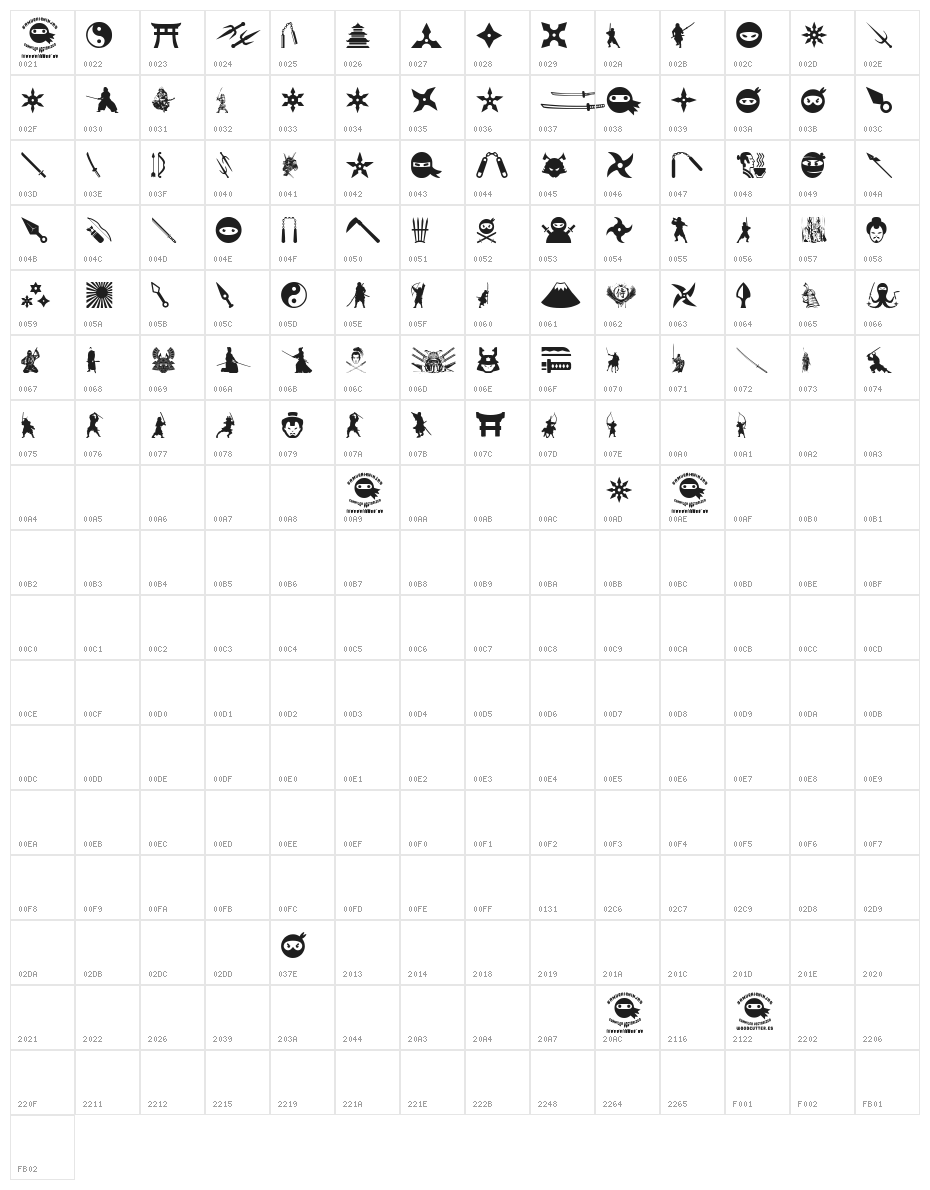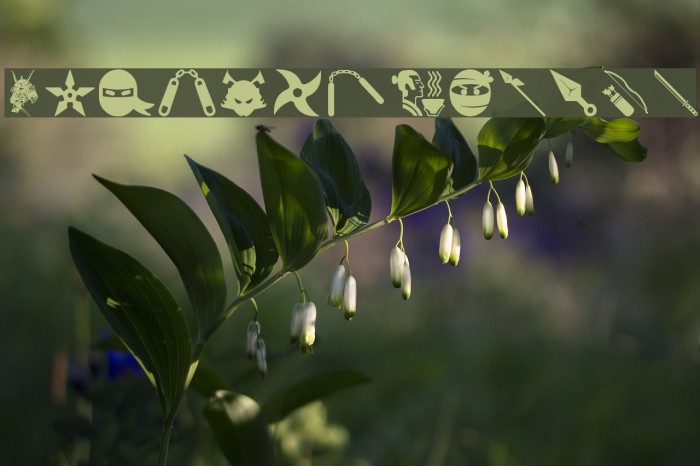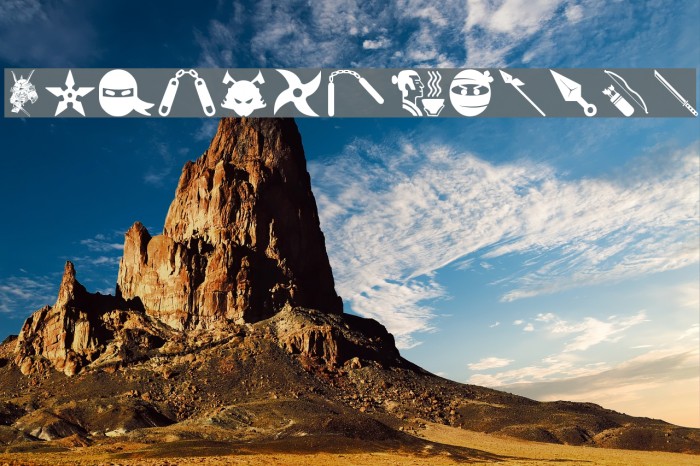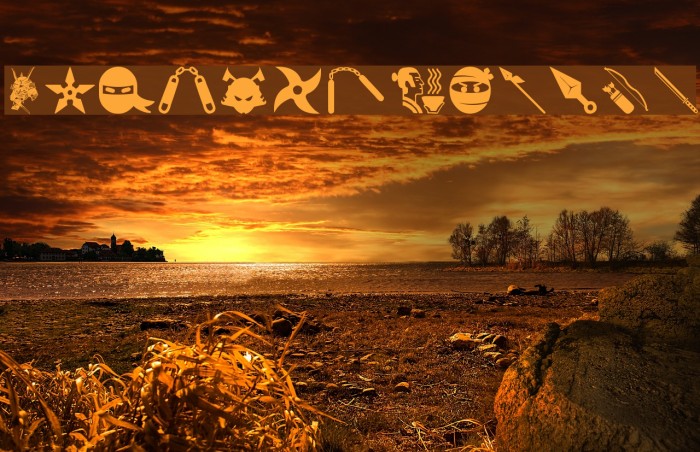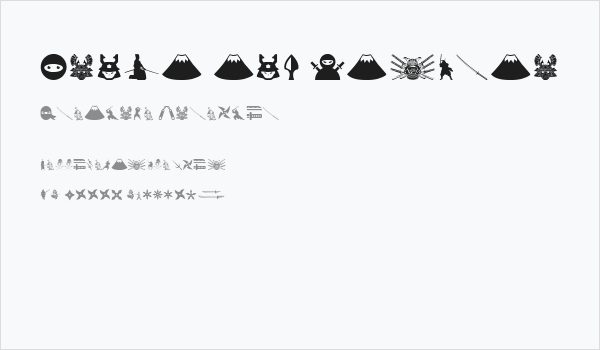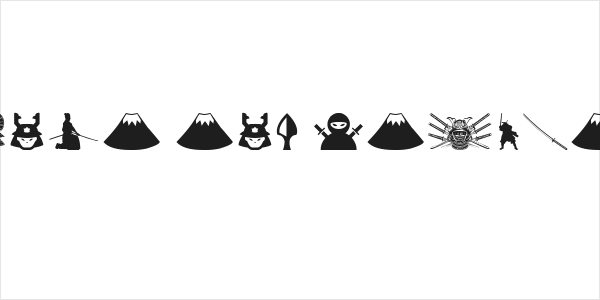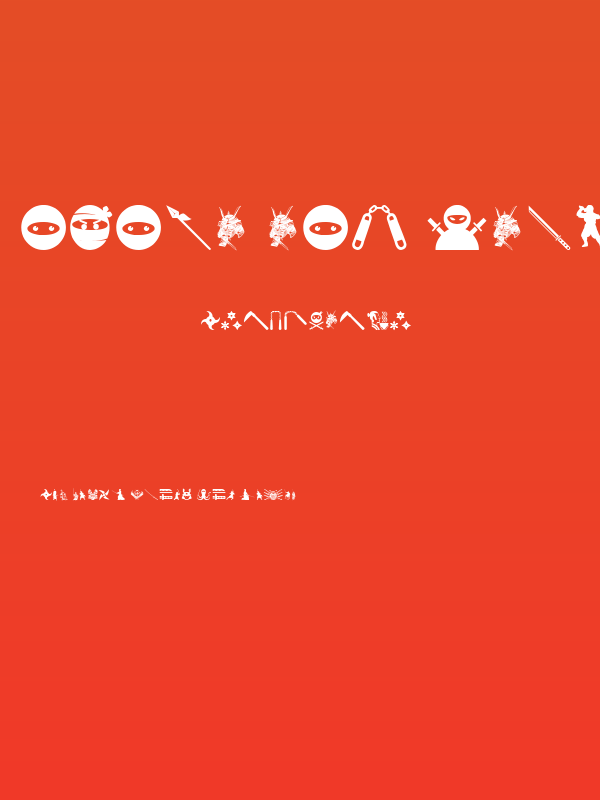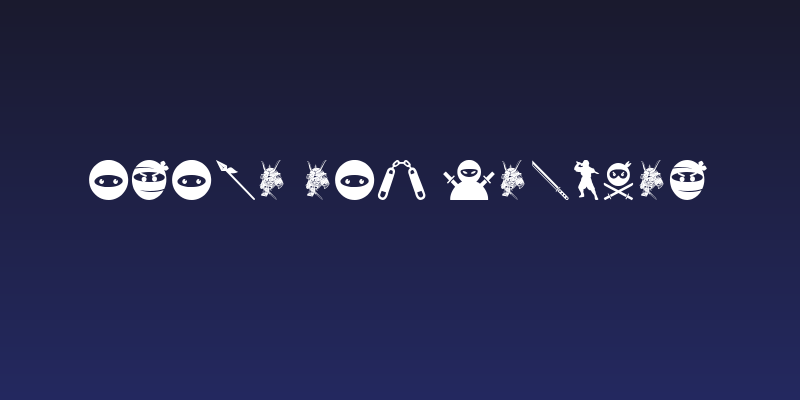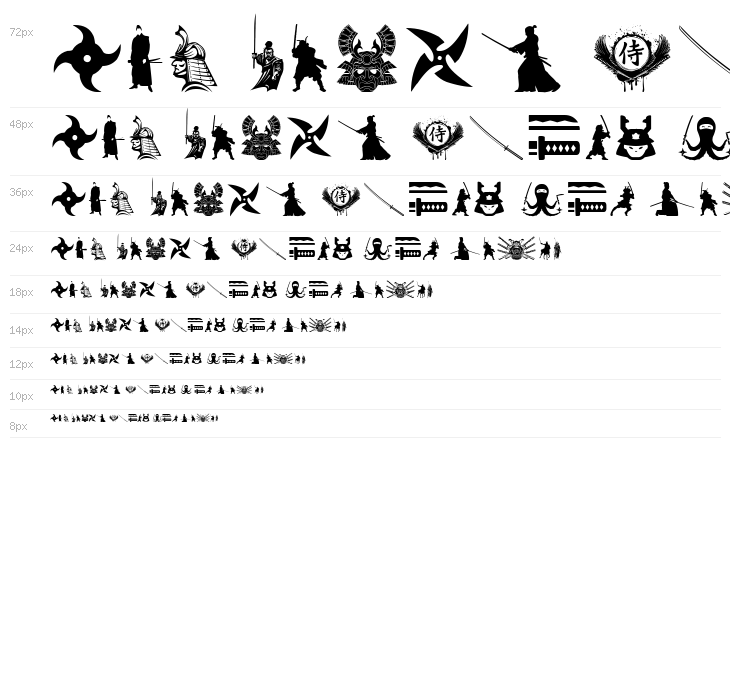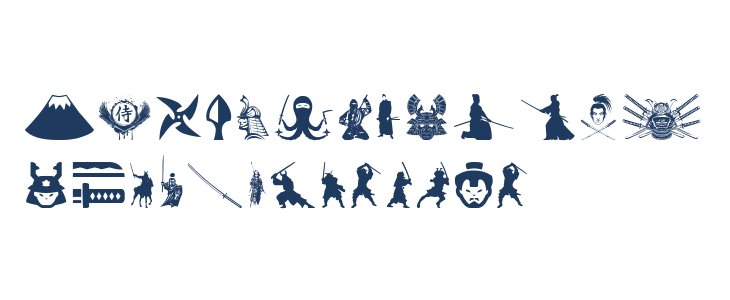
Ninja and Samurai Font
Ninja and Samurai Description
A decorative dingbat font featuring a wide variety of ninja and samurai-themed silhouettes, including weapons, masks, martial artists, and traditional Japanese symbols. The glyphs are bold, high-contrast, and highly stylized, making each character a unique pictogram rather than a traditional letterform.
| Overall Style | Decorative, Thematic, Playful |
| Use Case | Icons, Decorative elements, Themed graphics |
| Proposed Projects | Posters, themed party invitations, game design, educational materials, comics, branding for martial arts studios. |